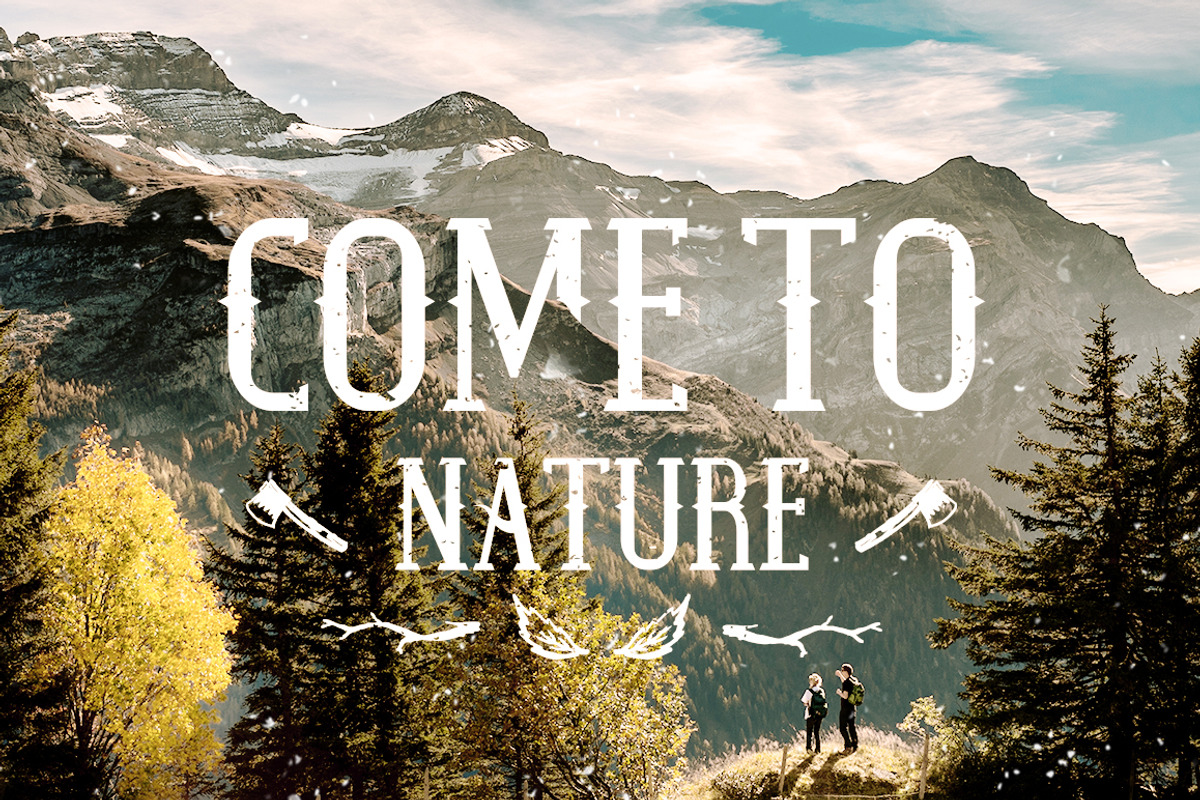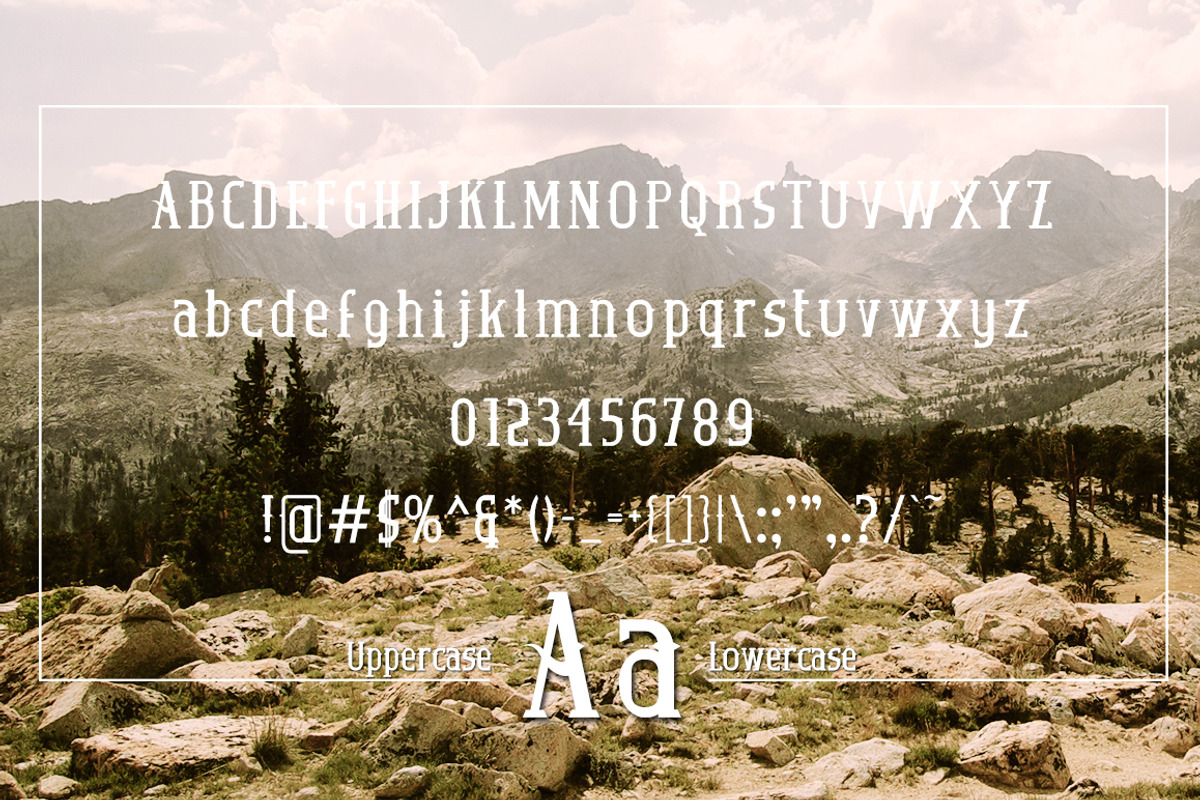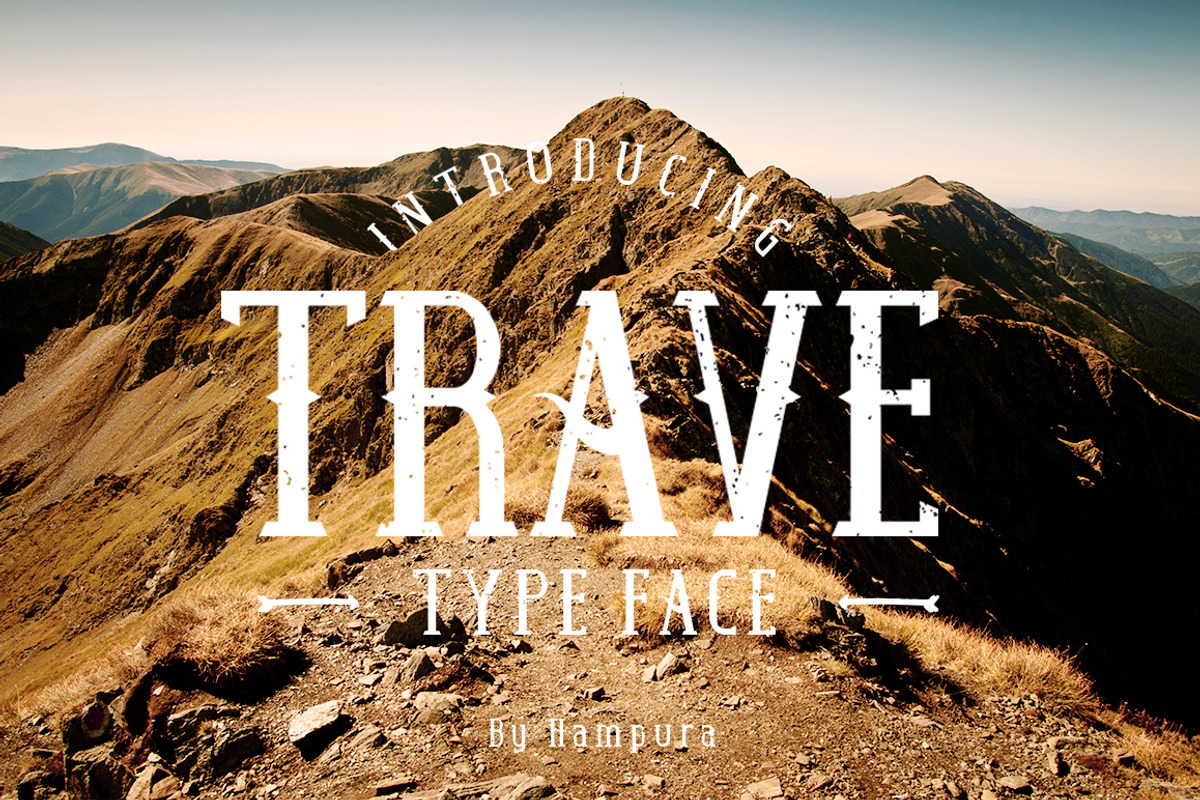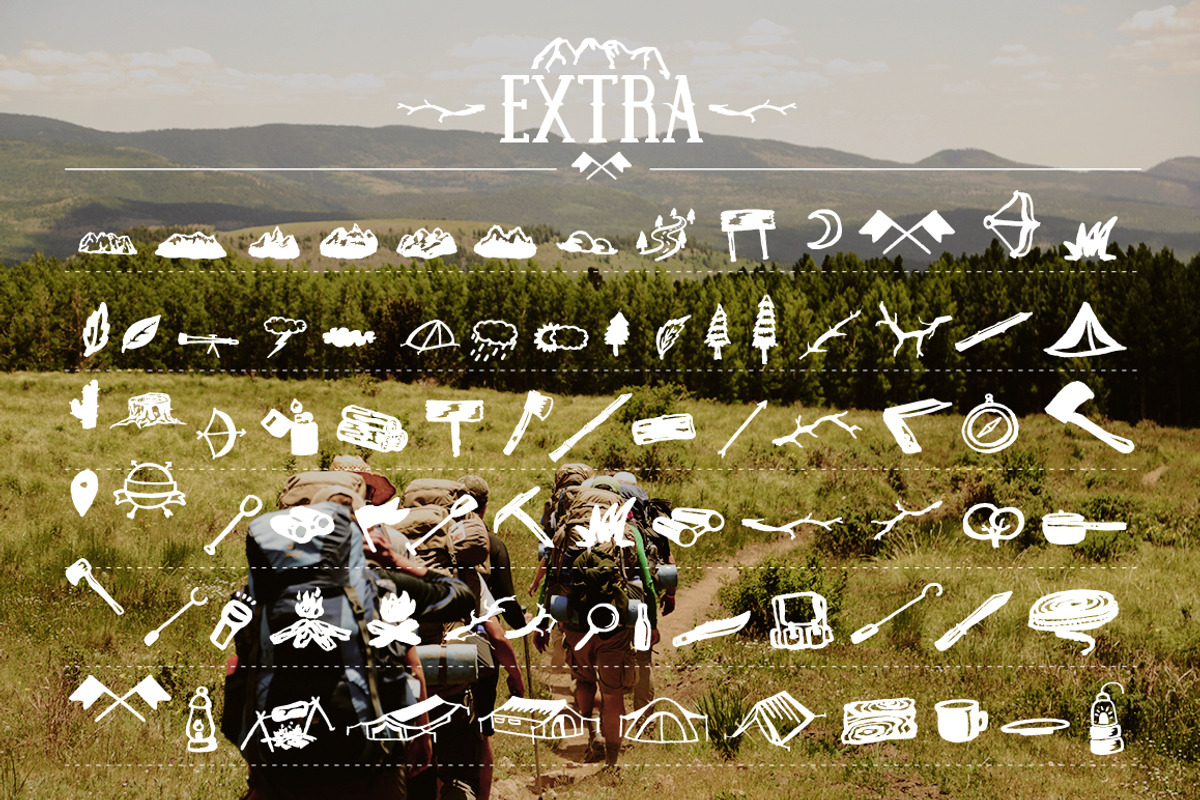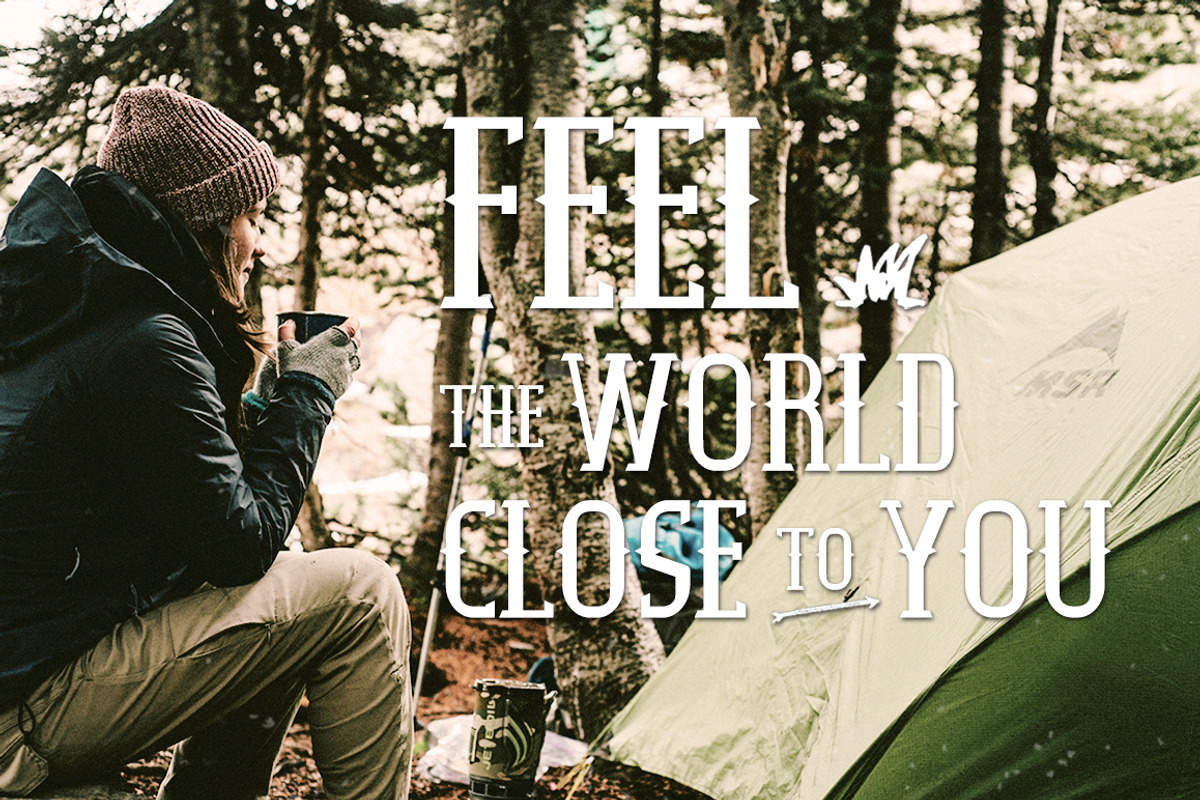
Trave Typeface
Trave Typeface by hampura is a font selected for branding, posters, packaging, typography.
- Hello :) Introducing a new Trave Typeface font, Trave is a serif font, the font comes with uppercase and lowercase characters.
Why Trave Typeface is worth a look
Trave Typeface by hampura fits naturally into Branding, posters, packaging, typography.